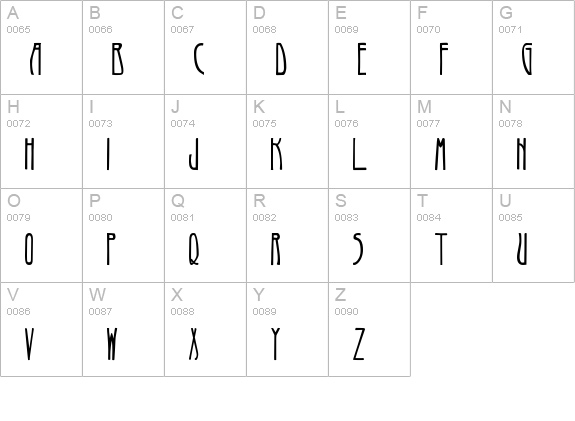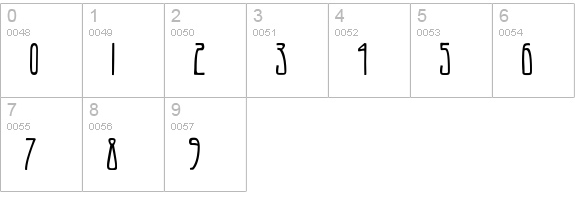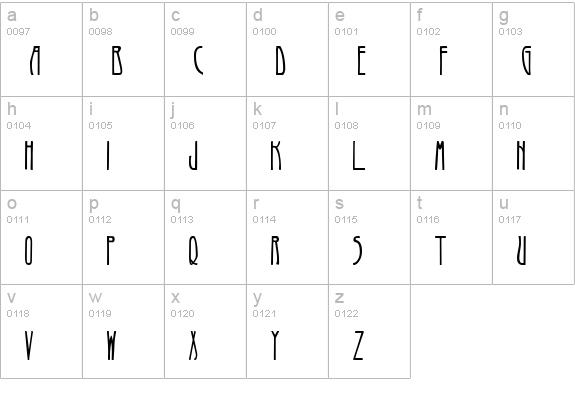
The Art-Nouveau 1900 font is a stunning typeface inspired by the elegant and intricate designs of the Art Nouveau movement from the turn of the 20th century. With its graceful curves and intricate details, this font exudes a sense of beauty and sophistication that is perfect for adding a touch of vintage charm to any project. What sets Art-Nouveau 1900 font apart is its unique blend of classic Art Nouveau elements with a modern twist, making it a versatile choice for a wide range of design applications. Whether you're working on a poster, invitation, logo, or any other creative project, this font is sure to make a statement and leave a lasting impression. And the best part is, Art-Nouveau 1900 font is completely free to download at FontsMarket.com! So why wait? Add a touch of timeless elegance to your designs today with this exquisite typeface.